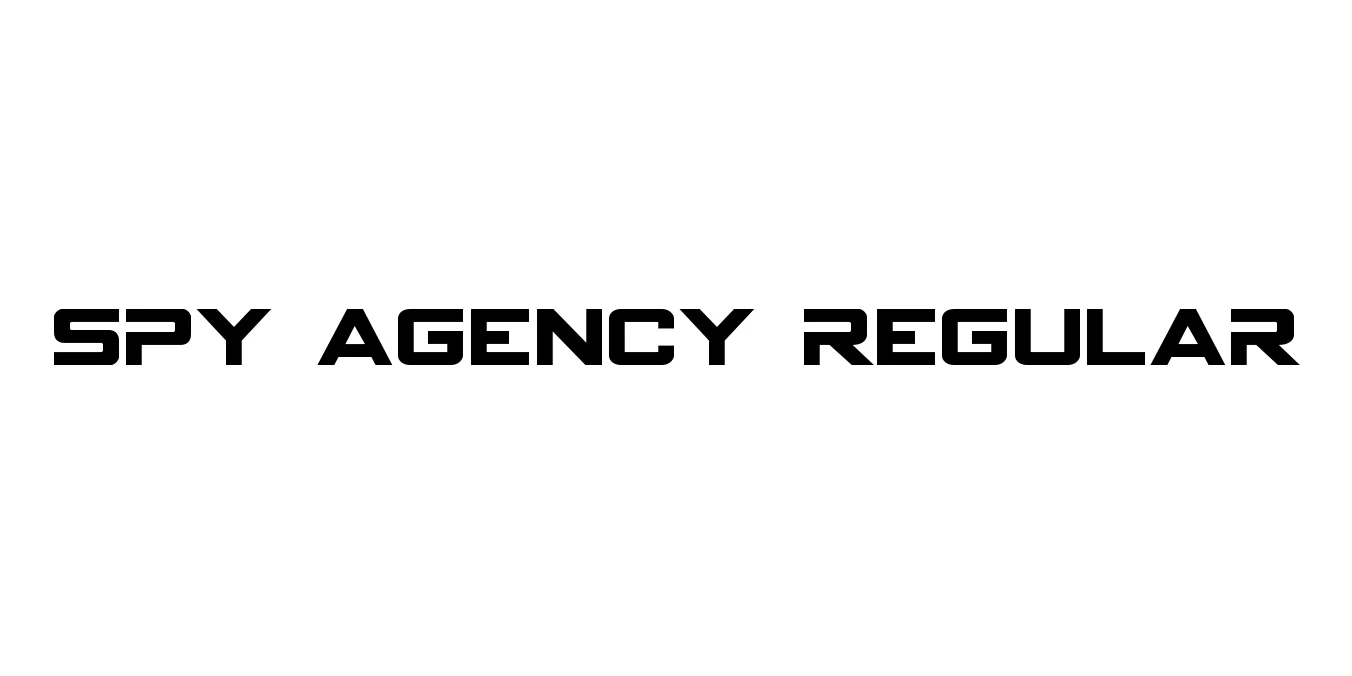
Spy Agency Regular
Designed by Iconian Fonts
| Category | Techno / Sci-Fi |
| Designer | Iconian Fonts |
| Similar Fonts | Eurostile, Bank Gothic, Microgramma |
Spy Agency Regular is a sleek, techno-inspired typeface created by the prolific designer Dan Zadorozny of Iconian Fonts. Drawing inspiration from the aesthetics of modern espionage, high-tech surveillance, and futuristic action cinema, this font features wide, horizontal proportions and rounded corners that convey a sense of speed and efficiency. Its clean, geometric structure makes it highly legible while maintaining a distinct, specialized personality that fits perfectly within the science fiction and thriller genres.
Since its release, the font has gained popularity among graphic designers for its versatility in sports branding and gaming interfaces. The Spy Agency family often includes multiple weights and stylistic variations, allowing for cohesive visual identities. Whether used for a cinematic title sequence or a professional athletic logo, Spy Agency provides a bold, commanding presence that feels both contemporary and authoritative.
Spy Agency Regular Best Uses
Perfect for creating dynamic team logos, jersey numbers, and athletic apparel graphics.
Ideal for head-up displays (HUD), title screens, and menu navigation in sci-fi or action titles.
Excellent for high-stakes thriller or spy movie titles and promotional materials.
Great for technology startups looking for a sleek, forward-thinking visual identity.